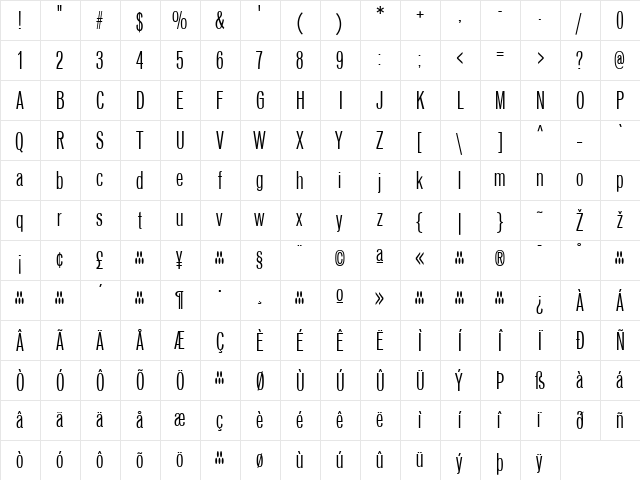
Vonnes Regular
| Foundry | \(c\) The Font Bureau, Inc |
Design Context for Vonnes Typeface
Vonnes takes a measured approach to typography — its balanced proportions and neutral character make it a reliable workhorse for both digital and print work.